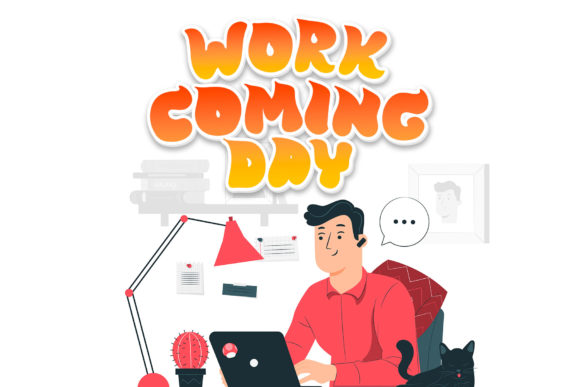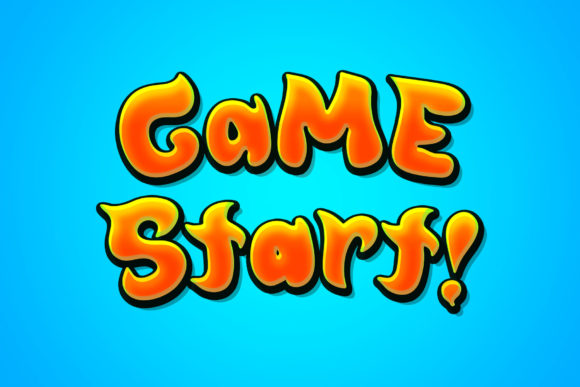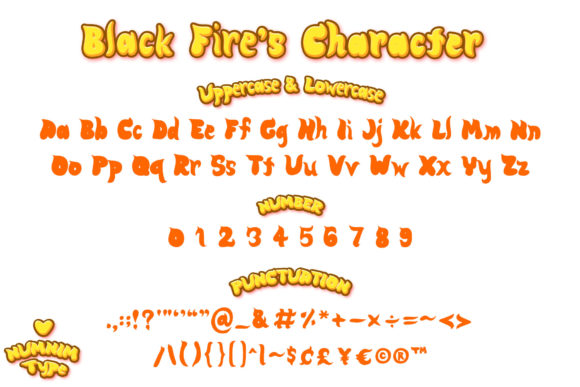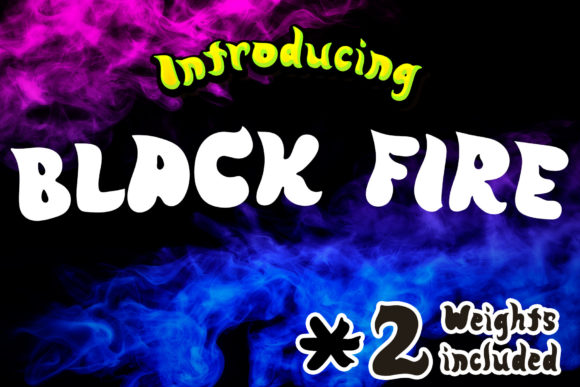
The Magic of Black Fire Font: A Playful Display Font to Ignite Your Creativity
I’ll never forget the time I was working on a project for a kids’ party invitation. I had the design concept nailed, but something was missing – the perfect font. I scoured the internet, tried out dozens of fonts, but none seemed quite right. That was until I stumbled upon Black Fire Font. This playful display font has been a game-changer for my designs, and I’m excited to share its magic with you! ✨
An Honest Review of Black Fire Font
- ✨ Its childlike playfulness is perfect for kids’ projects, party invitations, and school materials.
- ✅ The font’s unique blend of bold and cursive elements makes it stand out from more traditional fonts.
- 🎉 It’s incredibly versatile – use it for titles, headings, or even short paragraphs.
- 👍 The font is highly legible, even at smaller sizes.
While Black Fire Font is an amazing font, there are a few things to keep in mind: 🤔
- ⚠️ It may not be the best choice for body text or long paragraphs, as its playful nature can be overwhelming.
- ⚠️ Some of the font’s more intricate details may not render well at very small sizes.
- Experiment with the font’s OpenType features, such as glyphs and stylistic alternates, to add more personality to your text.
The Backstory of Black Fire Font
Black Fire Font was designed with one goal in mind: to create a playful, yet elegant font that would ignite creativity in designers and non-designers alike. The font’s creator was inspired by the whimsical world of children’s books and the magic of imagination. With Black Fire Font, you can bring a touch of that magic to your designs! 🔥